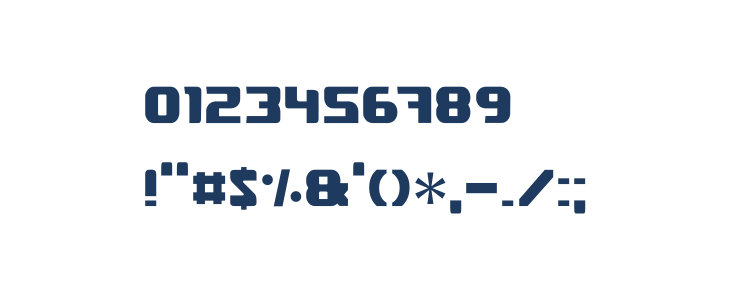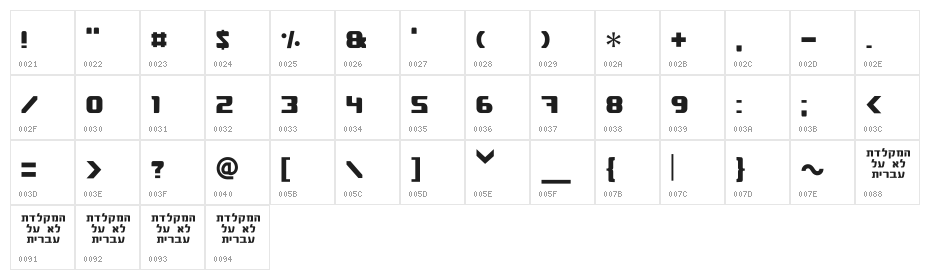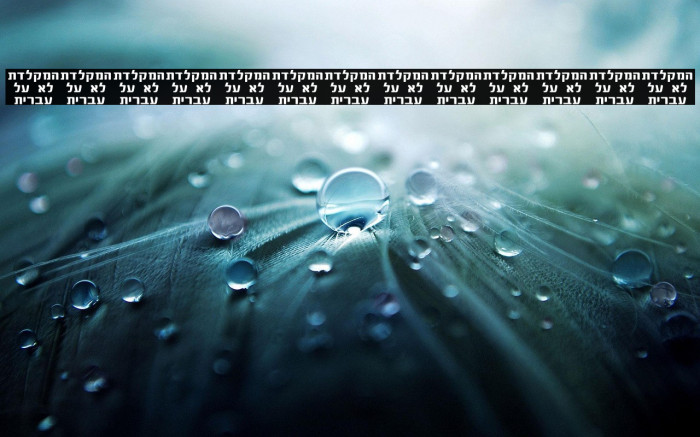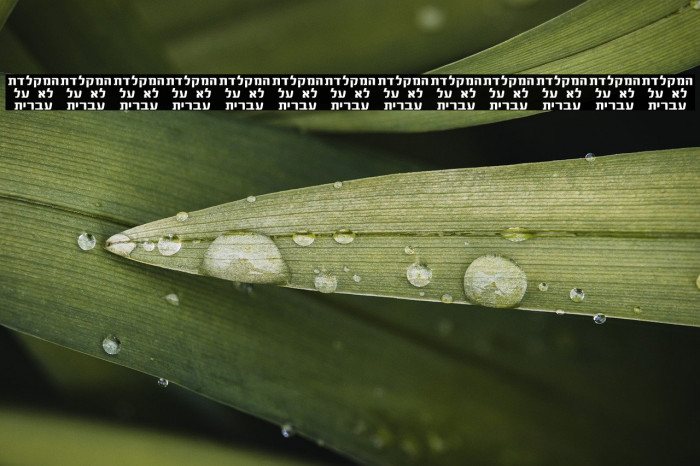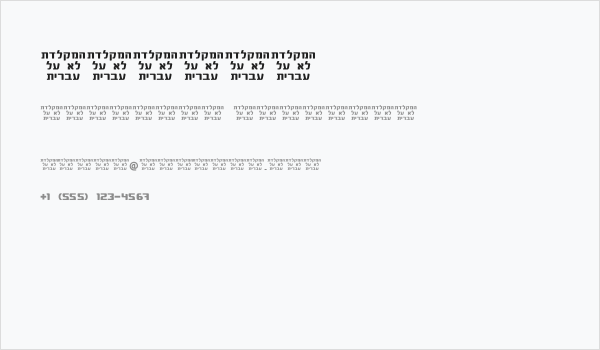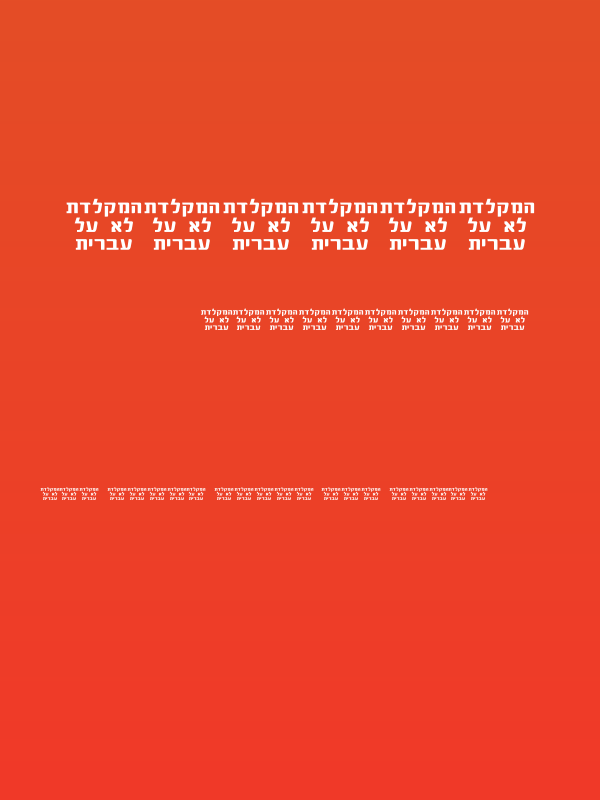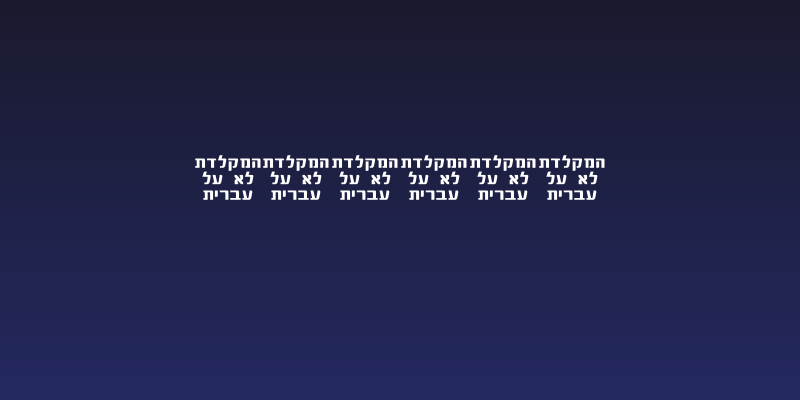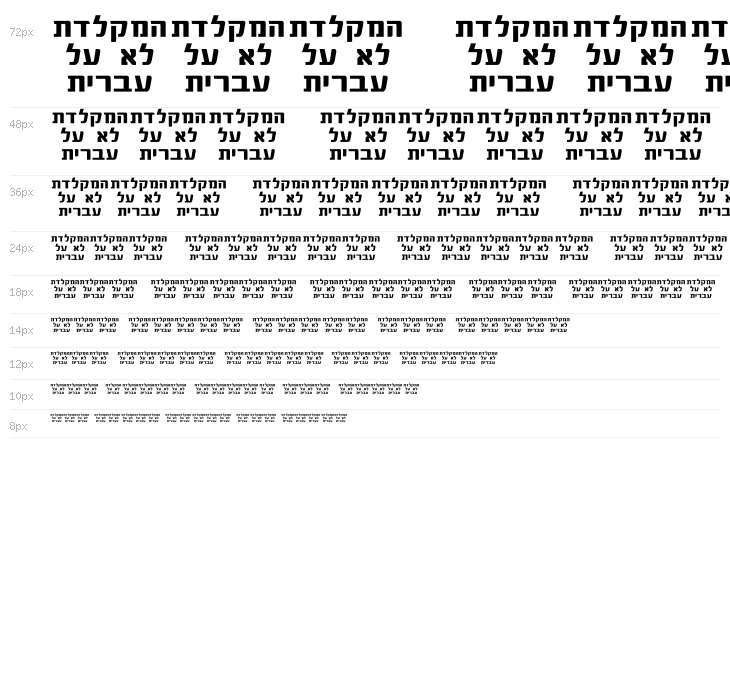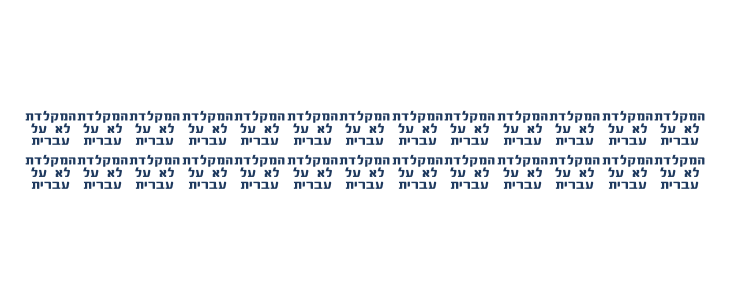
Asakim Font
Asakim Description
This font features a bold and modern design with a strong geometric structure. The characters are wide and blocky, giving a sense of stability and strength. The numerals are particularly striking, with a uniform thickness that enhances readability. Special characters are designed to match the boldness of the letters and numbers, ensuring consistency across all elements. The font's overall appearance is clean and impactful, making it suitable for attention-grabbing headlines and logos.